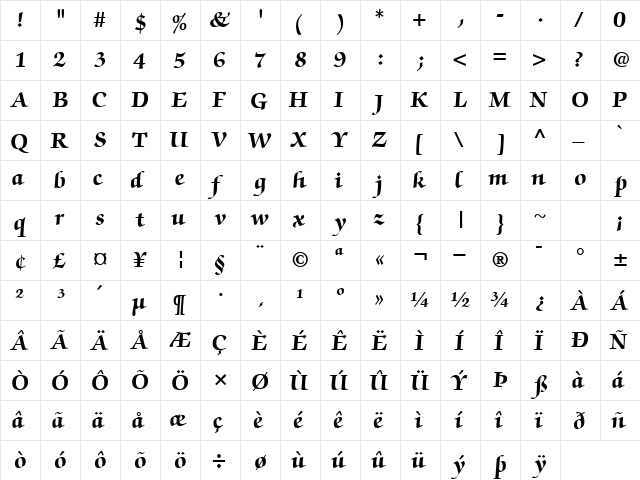
ChanceryScriptBlackSSK Regular
Design Context for ChanceryScriptBlackSSK Typeface
ChanceryScriptBlackSSK brings a calligraphic fluidity to the page — its connecting strokes and expressive curves give it an unmistakably human quality.
Font Pairing: Combine ChanceryScriptBlackSSK with a simple geometric sans for maximum contrast — the tension between flowing curves and clean structure is a classic typographic pairing.
Pro Tip: Pair ChanceryScriptBlackSSK with a clean sans-serif for supporting text. The contrast between fluid script and geometric structure creates an elegant typographic hierarchy.